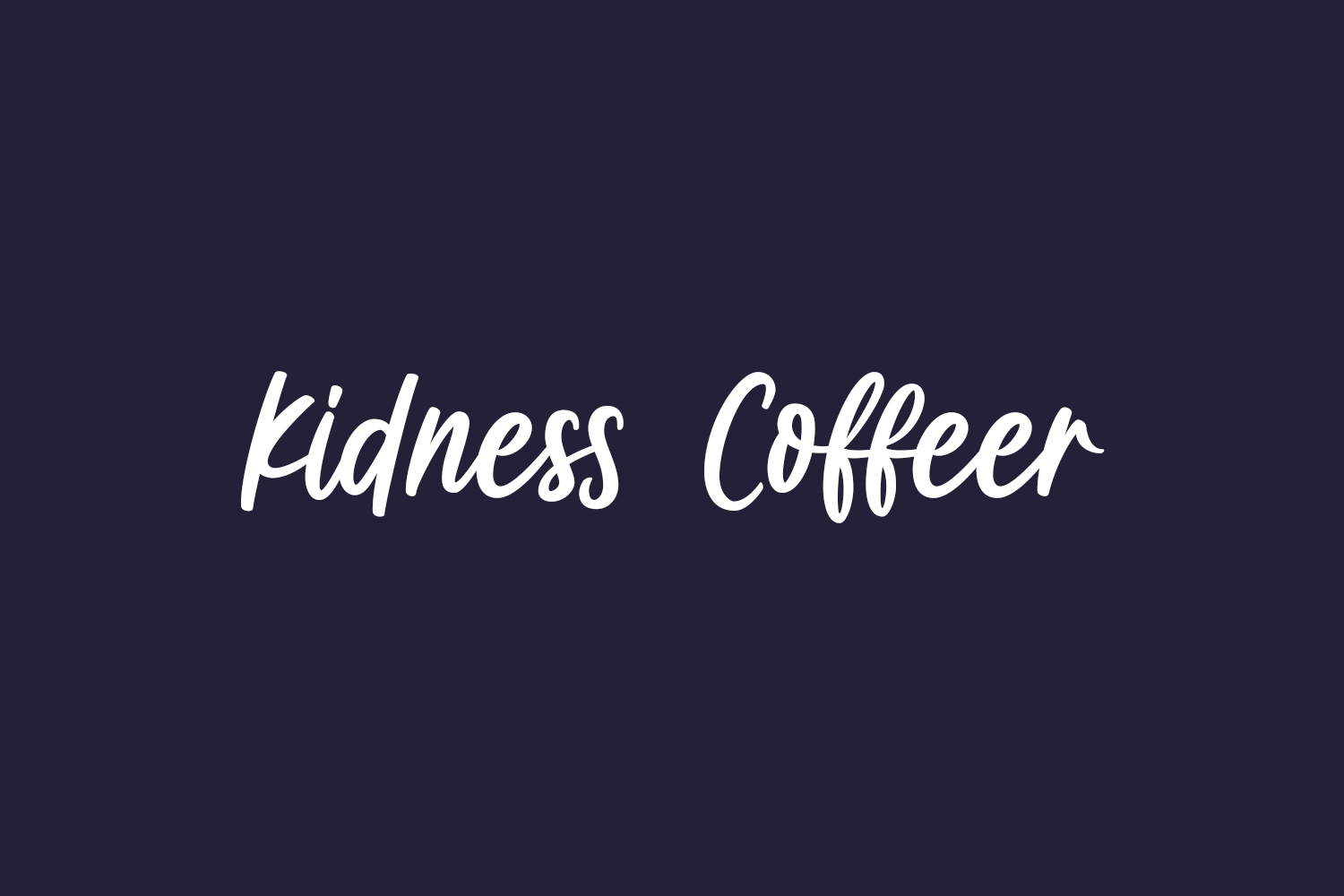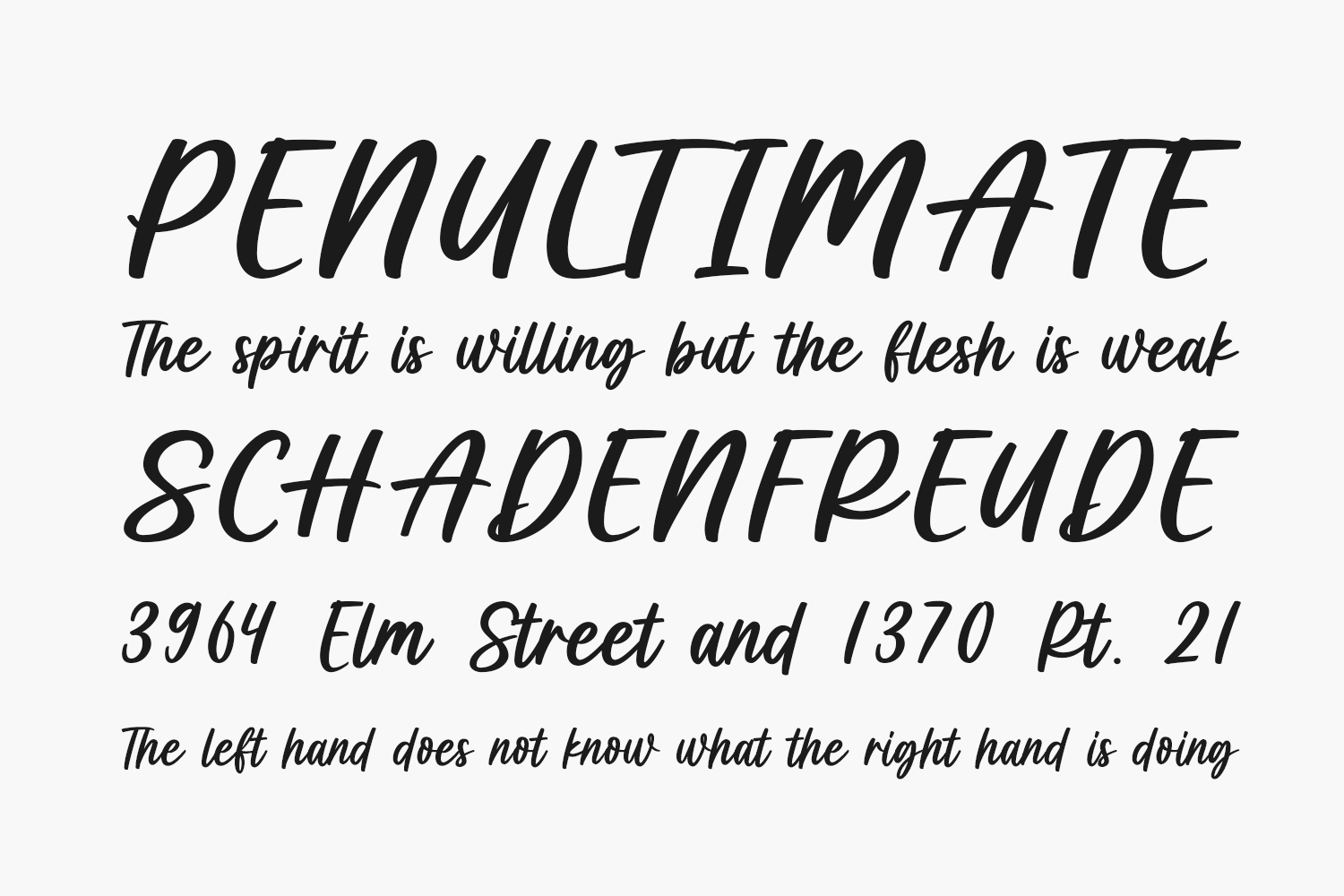
Kidness Coffee Free Font is an elegant handwritten font, featuring a lovely flow. This font was particularly crafted for those who need a beautiful and refreshing look to their designs. Kidness Coffee Free Font was designed by Nirmala Creative and is free for personal use only. Please purchase the full version for commercial use.